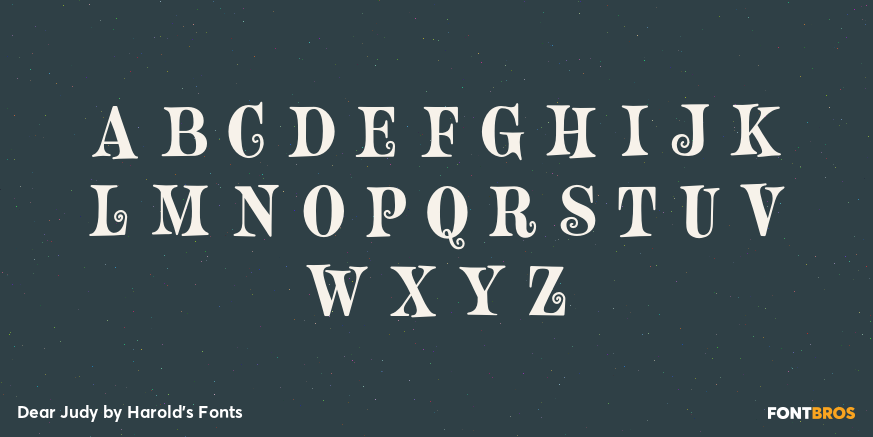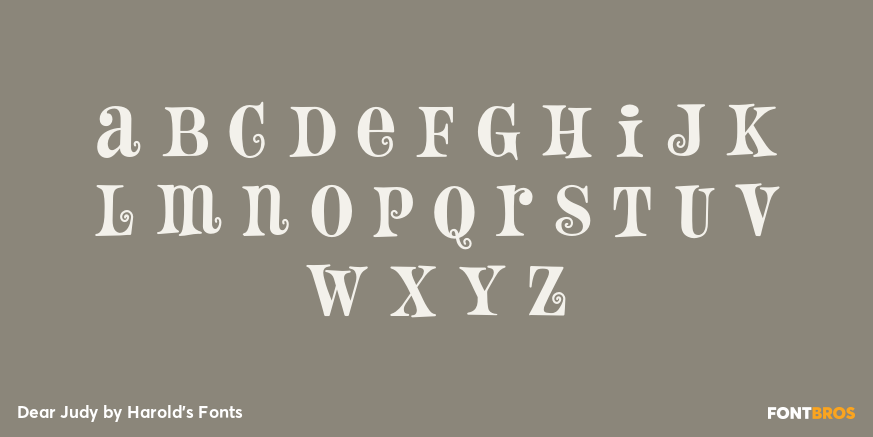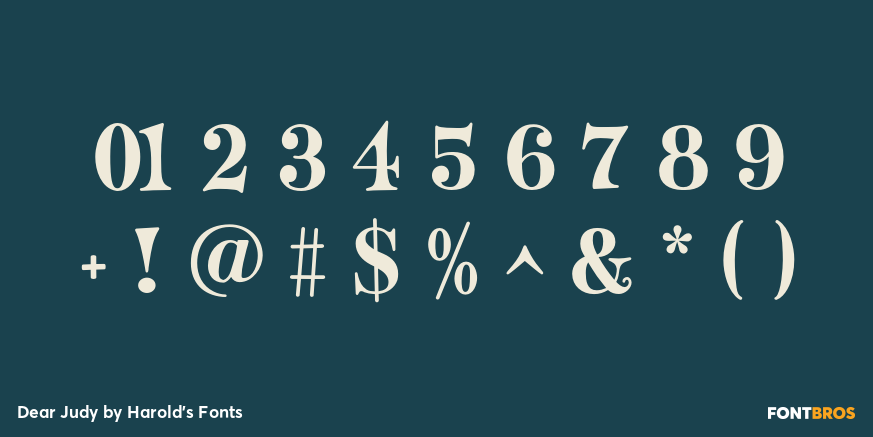
Dear Judy
Font Family by Harold's Fonts
DEAR JUDY is a fun font with flair. This unicase font has its roots in 1960s design: quirky, bouncy serifed letterforms, all caps with cap-sized lowercase versions of some letters (AEMNR). Extra curls on some alternates too! DEAR JUDY was inspired by a hand lettered paperback cover from 1963 called "Cover Girl Nurse.